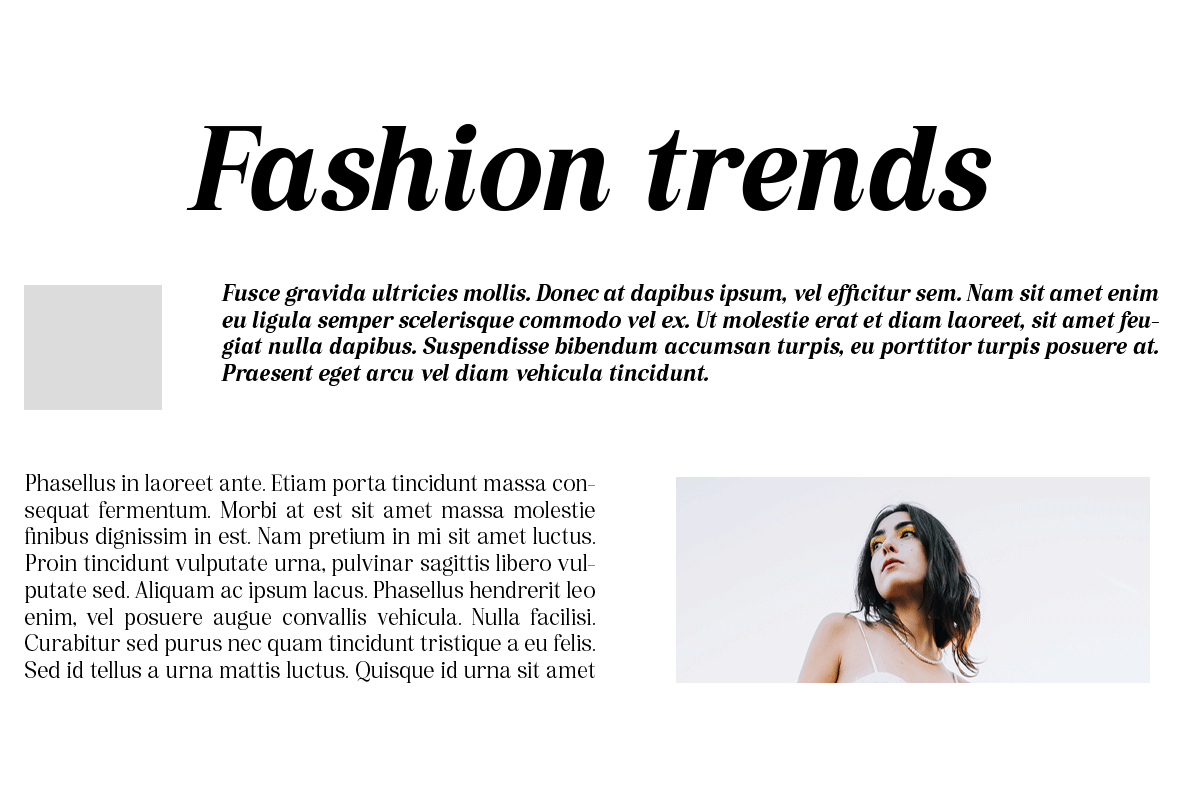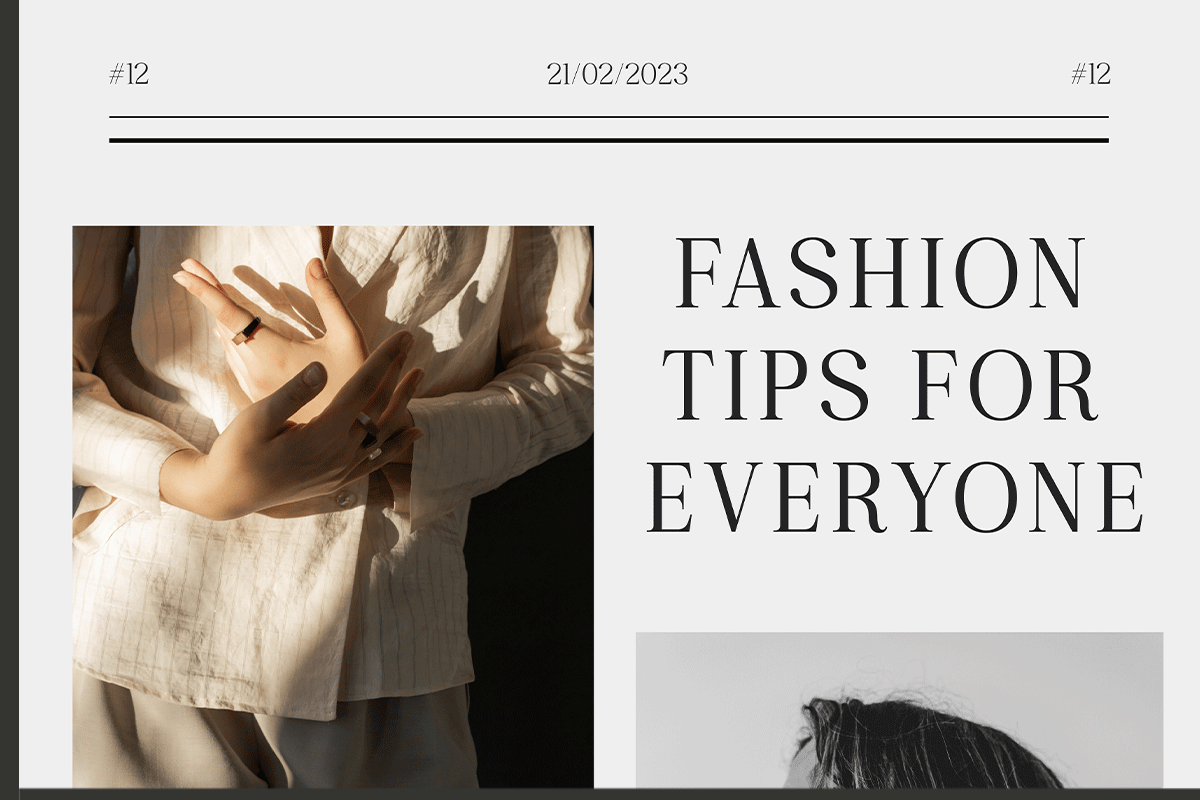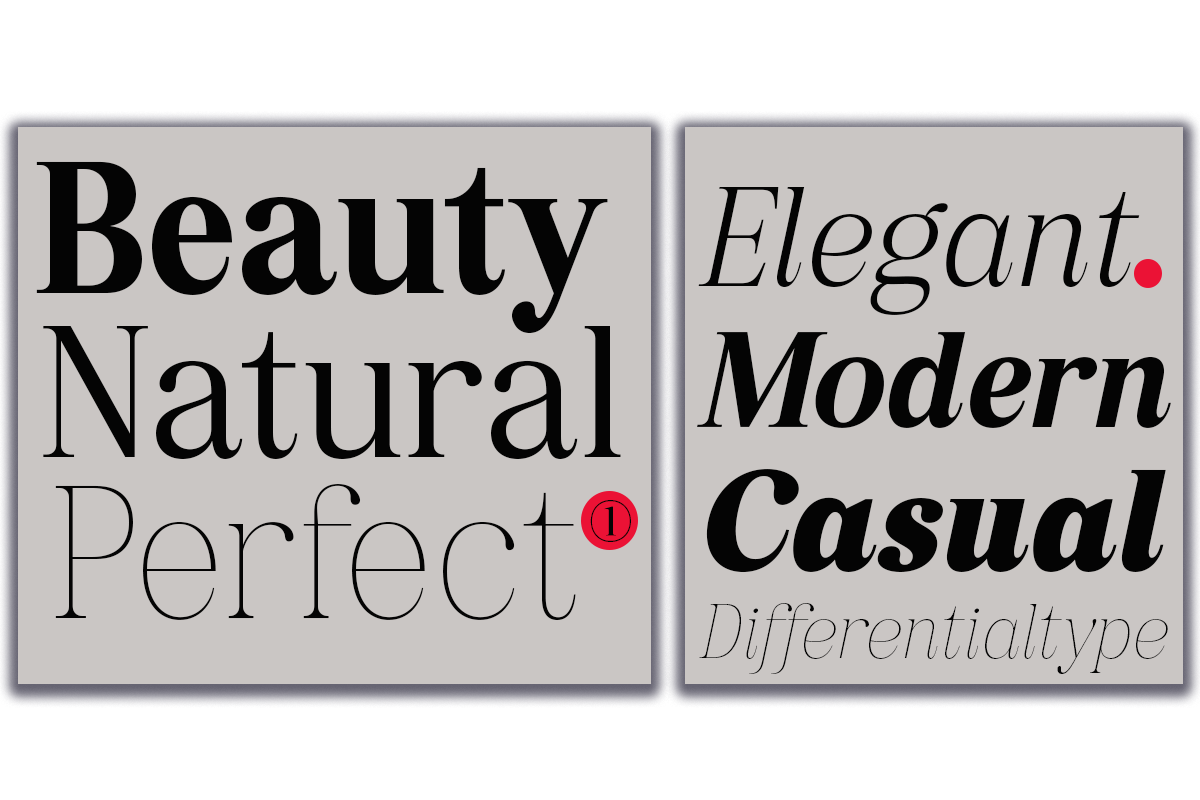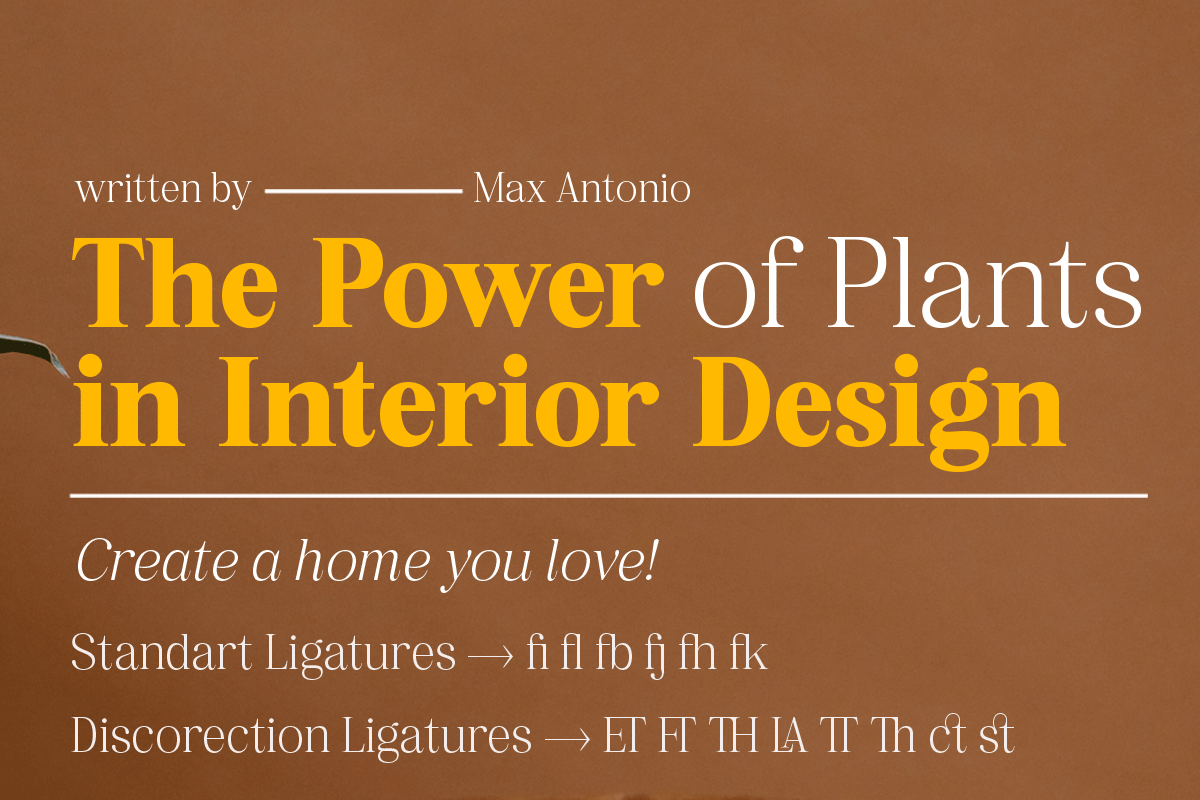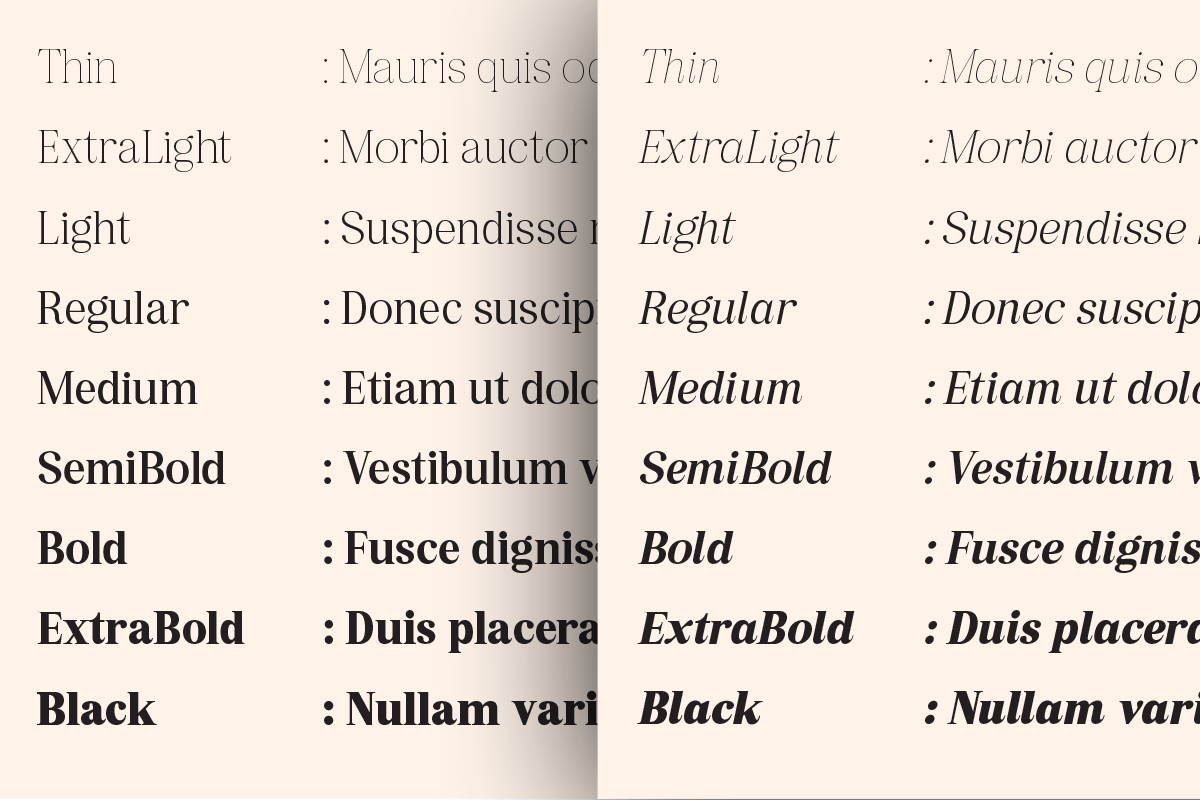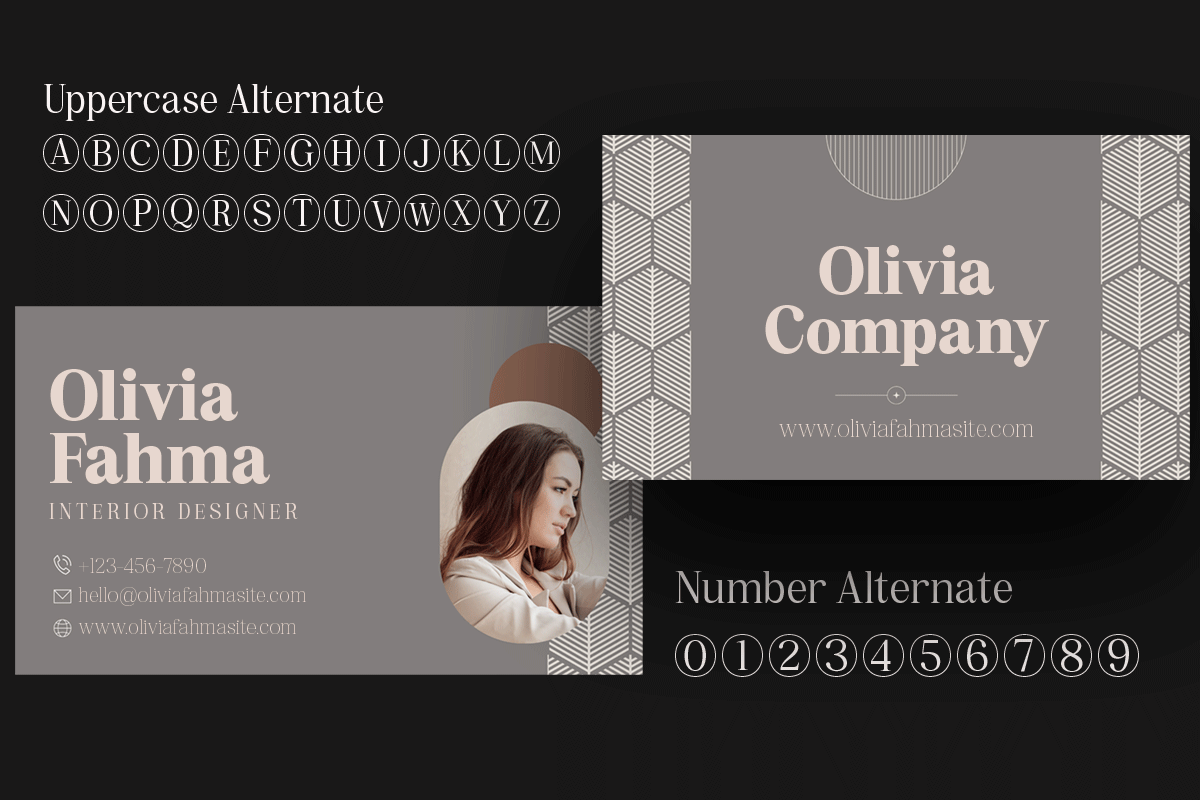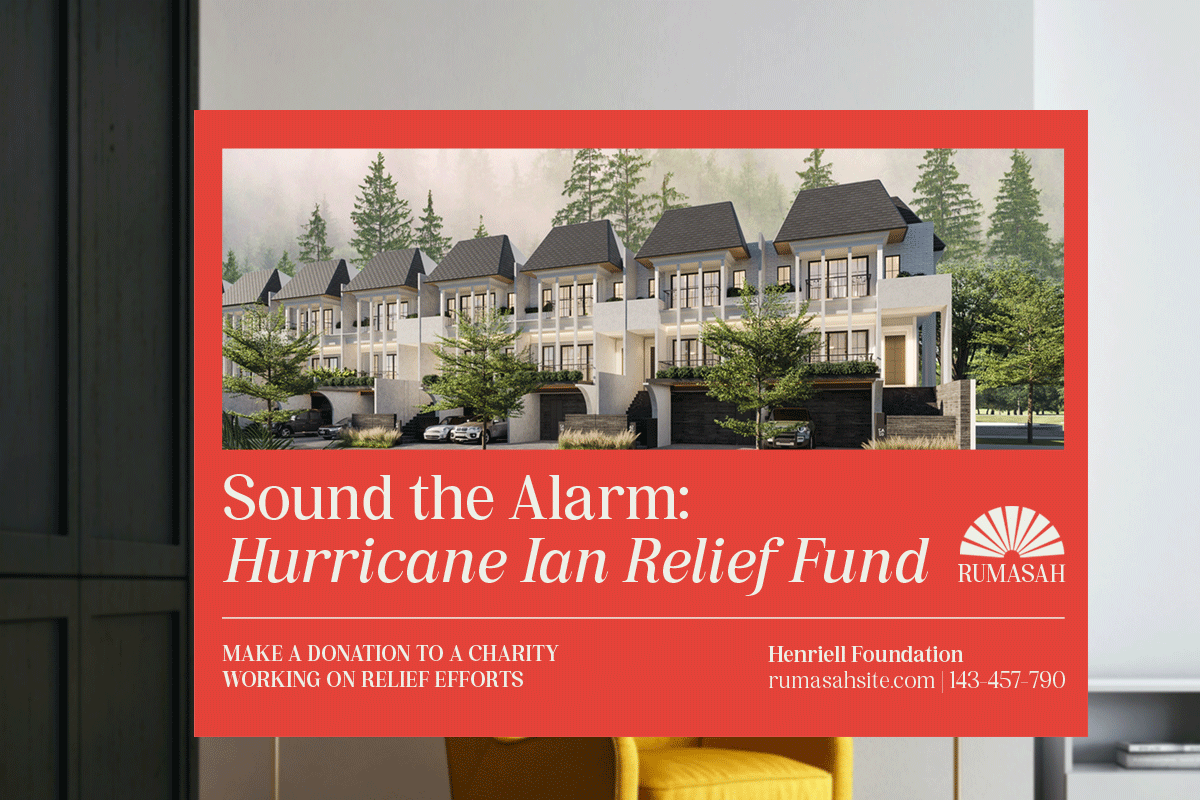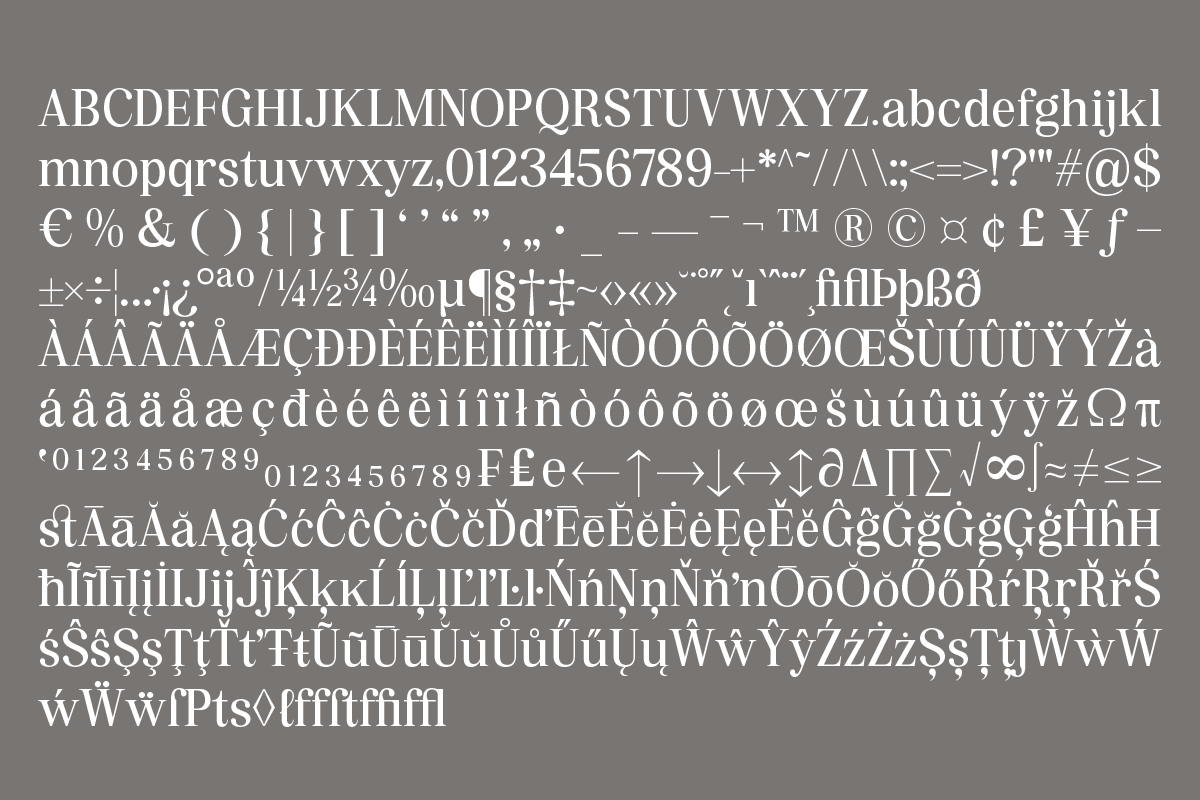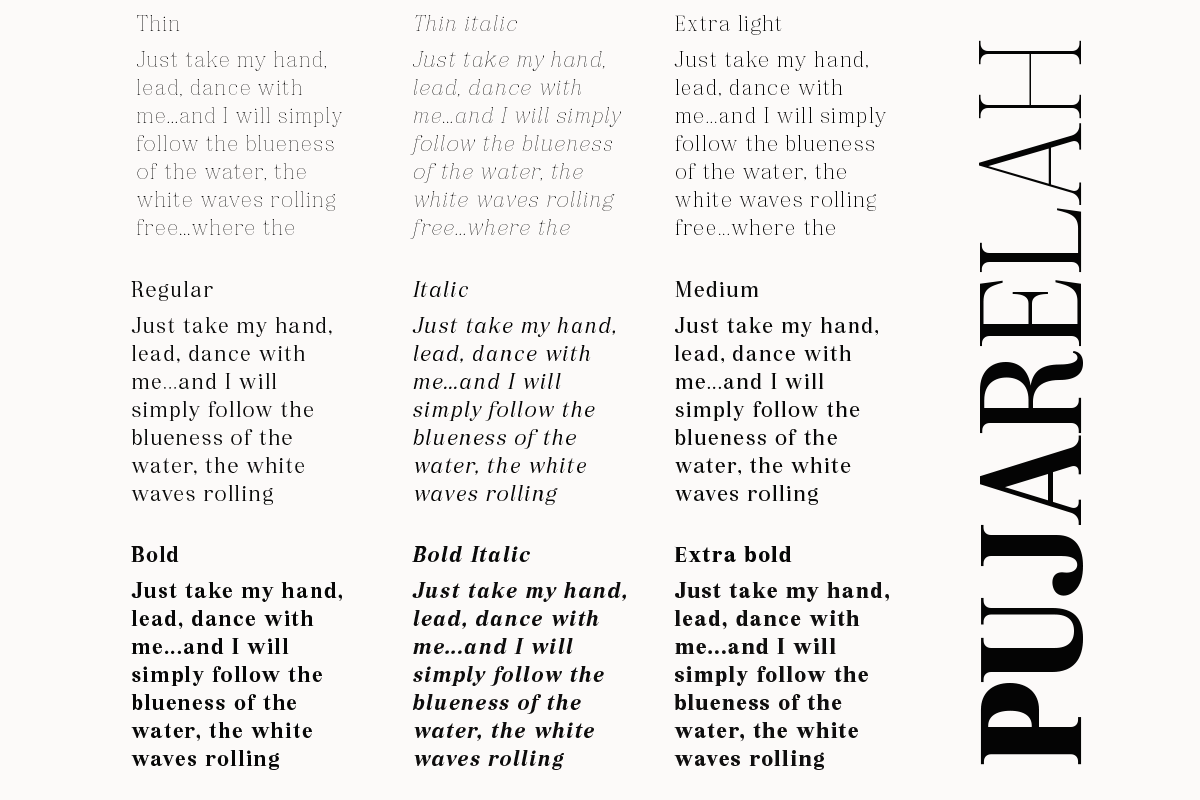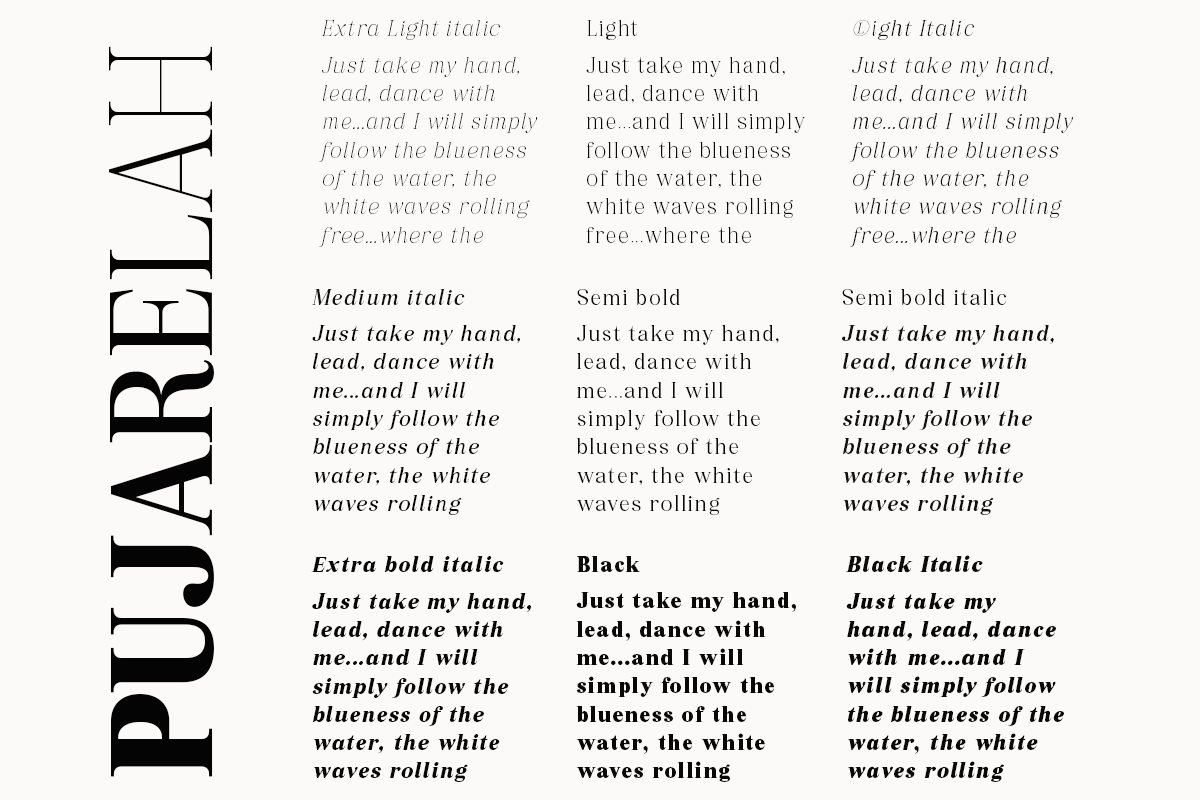
Pujarelah - Serif Family Font
Pujarelah is an elegant and modern serif font family with many weights that you can mix and match. It has 9 weight styles and 9 italics that you can play with to suit your project. Pujarelah is suitable for application on various other formal forms such as invitations, labels, logos, magazines, books, greeting/wedding cards, packaging, fashion, make-up, stationery, novels, labels and many other projects.